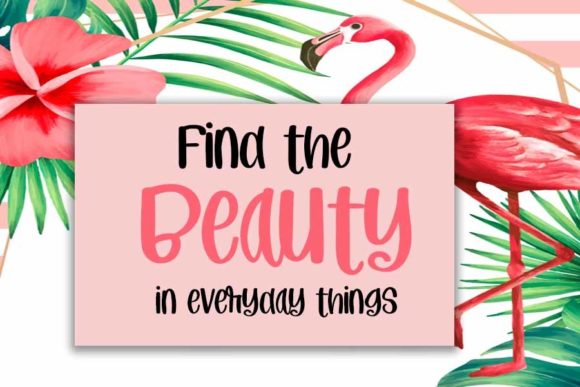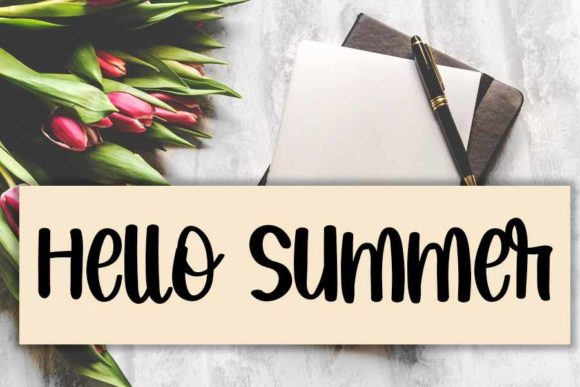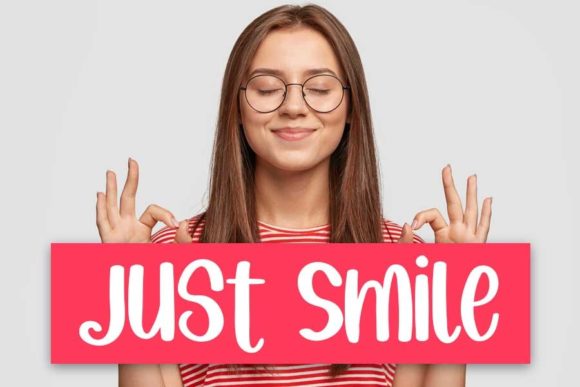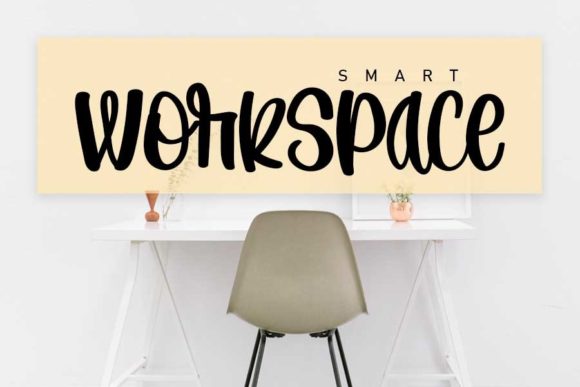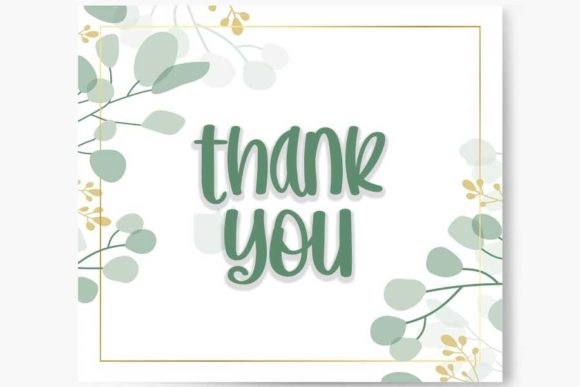
Introducing Handmade Font: Elevate Your Creativity with a Chic, Casual, and Friendly Handwritten Style
Are you a designer, crafter, or DIY enthusiast looking for a font that can add a personal touch to your creative projects? Look no further than Handmade Font, a beautiful, handwritten script that can turn any idea into a true piece of art. In this article, we’ll explore the features and benefits of Handmade Font, and how it can be used to elevate your Instagram feed, DIY projects, and more.
What is Handmade Font?
Handmade Font is a unique, handwritten font that exudes a sense of warmth, friendliness, and approachability. Its casual, laid-back vibe makes it perfect for designers and crafters who want to add a personal touch to their work. Whether you’re creating social media graphics, crafting signs, or designing invitations, Handmade Font is the perfect choice.
Key Features of Handmade Font
- Chic and Casual: Handmade Font has a stylish, yet relaxed feel that makes it perfect for a wide range of creative projects.
- Handwritten Style: The font’s handwritten style gives it a personal, human touch that’s perfect for adding a bit of warmth and personality to your designs.
- Easy to Read: Despite its casual vibe, Handmade Font is easy to read, making it perfect for use in body text, headings, and titles.
- Versatile: Handmade Font can be used for a wide range of creative projects, from social media graphics to DIY crafts.
Uses for Handmade Font
So, how can you use Handmade Font in your creative projects? Here are just a few ideas to get you started:
- Instagram Graphics: Add a personal touch to your Instagram feed with Handmade Font. Use it to create eye-catching captions, quotes, and graphics that showcase your personality and style.
- DIY Crafts: Handmade Font is perfect for DIY crafters who want to add a personal touch to their projects. Use it to create signs, labels, and other embellishments that showcase your handmade style.
- Calligraphy Scripts: Handmade Font is also great for calligraphy scripts. Use it to create beautiful, handwritten pieces that showcase your creativity and skill.
- Invitations and Stationery: Add a touch of elegance and sophistication to your invitations and stationery with Handmade Font. Use it to create beautiful, handwritten cards and invitations that are sure to impress.
Tips for Using Handmade Font
Here are a few tips for getting the most out of Handmade Font:
- Experiment with Colors: Handmade Font looks great in a variety of colors. Experiment with different hues and combinations to find the perfect look for your project.
- Play with Size: Handmade Font can be used at a variety of sizes. Experiment with different sizes to find the perfect fit for your project.
- Add Embellishments: Consider adding embellishments, such as flourishes or swashes, to give your Handmade Font project a bit of extra flair.